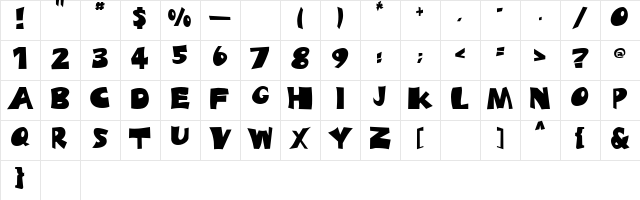
Kramer 1 bold Free Font
Kramer 1 bold
Style: bold
Complete Kramer 1 bold glyph index. Displaying only characters natively supported by Kramer 1 bold font.
Design Context for Kramer 1
Kramer 1 is a composed and adaptable typeface that performs quietly and consistently across a wide range of design contexts. Its bold stroke weight gives it real presence on the page.